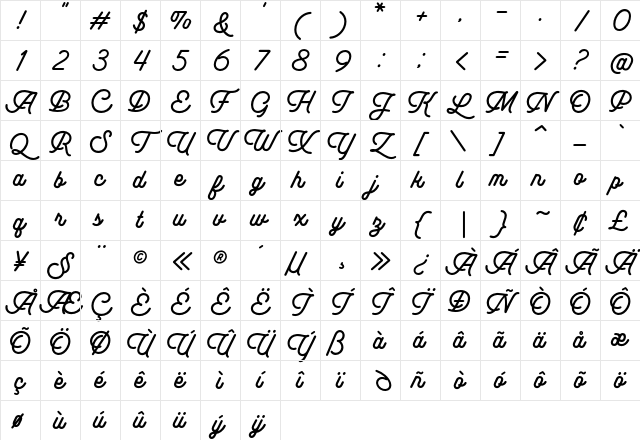
Indonesia Script Regular
Foundry: Hendra Pratama
Designer: Hendra Pratama
Design Context for Indonesia Script
Indonesia Script flows with the natural rhythm of handwritten lettering, making it ideal for designs that call for warmth and personal expression.
Font Pairing: Combine Indonesia Script with a simple geometric sans for maximum contrast - the tension between flowing curves and clean structure is a classic typographic pairing.
Pro Tip: Use Indonesia Script for short runs of text - names, titles, or taglines. Extended body copy in script faces tires the eye quickly.